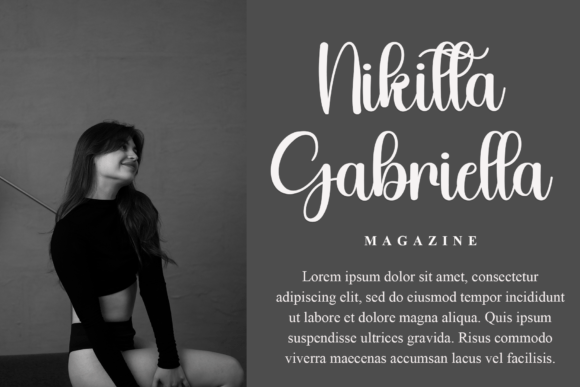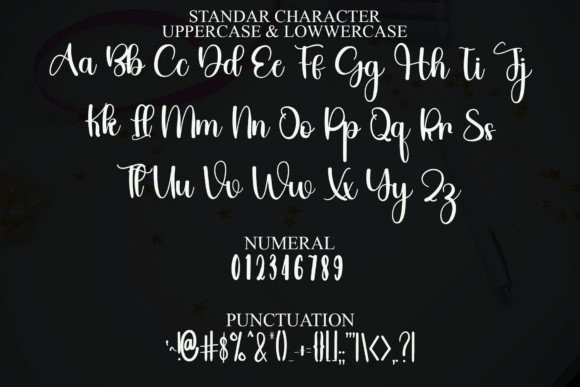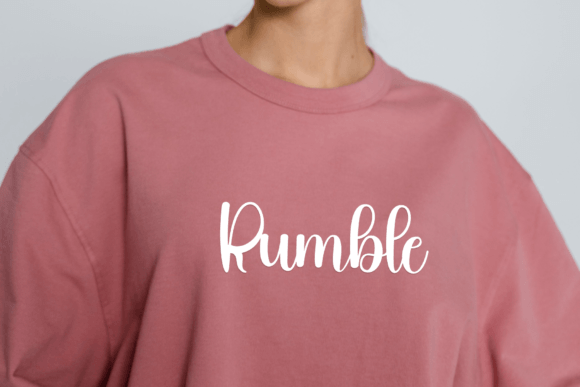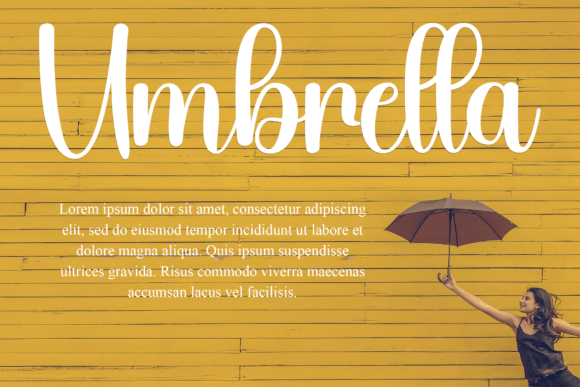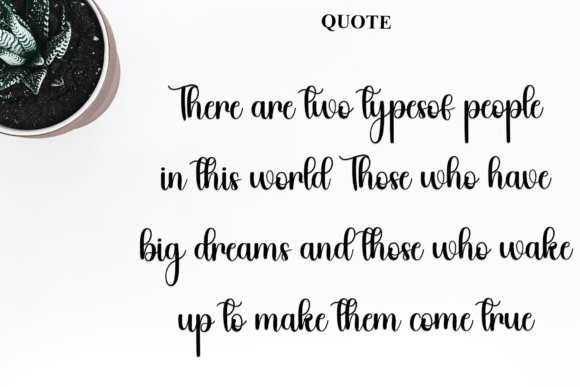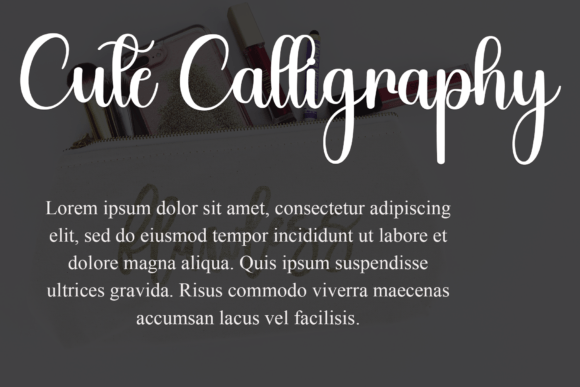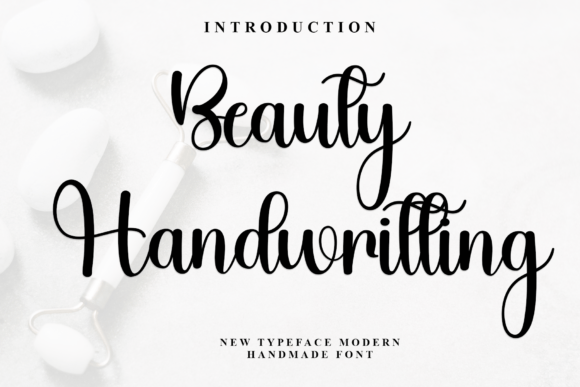
Introducing Beauty Handwriting Font: Elevate Your Designs with Elegance and Charm
Are you a designer, crafty DIY enthusiast, or social media influencer looking to add a touch of sophistication to your creations? Look no further than the Beauty Handwriting Font. This stunning font is designed to bring a sense of elegance, charm, and warmth to any design, making it perfect for a wide range of applications, from invitations and branding to social media graphics and more.
The Beauty of Fluid Strokes and Natural Flow
Beauty Handwriting Font boasts fluid strokes and a natural flow that creates a captivating, sophisticated look. The font’s unique characteristics make it stand out from other handwriting fonts, giving it a distinctive and stylish feel that’s sure to grab attention. Whether you’re looking to create a luxurious brand identity or add a personal touch to your social media posts, this font is sure to impress.
Perfect for Adding a Personal Touch
One of the key benefits of Beauty Handwriting Font is its ability to add a personal touch to any design. The font’s elegant and charming aesthetic makes it perfect for use in:
- Invitations: Create beautiful wedding invitations, birthday party invites, or baby shower announcements that set the tone for a special occasion.
- Branding: Establish a luxurious brand identity with a custom logo, packaging, or marketing materials that showcase your brand’s personality.
- Social Media: Elevate your social media presence with eye-catching graphics, quotes, or promotions that reflect your unique style.
Why Choose Beauty Handwriting Font?
With so many fonts available, why choose Beauty Handwriting Font? Here are just a few reasons why designers and crafters love this font:
- Unique and Versatile: Beauty Handwriting Font is a one-of-a-kind font that can be used in a variety of contexts, from formal to informal.
- Elegant and Sophisticated: The font’s fluid strokes and natural flow create a sophisticated look that’s perfect for high-end branding or special occasions.
- Easy to Read: Despite its elegant aesthetic, Beauty Handwriting Font is easy to read, making it perfect for use in body text or captions.
- Customizable: With a range of font styles and weights, you can customize Beauty Handwriting Font to suit your design needs.
Tips for Using Beauty Handwriting Font
To get the most out of Beauty Handwriting Font, here are a few tips to keep in mind:
- Pair with a Sans-Serif Font: For a beautiful contrast, pair Beauty Handwriting Font with a clean sans-serif font for body text or captions.
- Experiment with Font Sizes: Play around with different font sizes to create visual interest and hierarchy in your design.
- Add a Pop of Color: Use Beauty Handwriting Font in a bold, bright color to create a statement piece or draw attention to a specific element.
Beauty Handwriting Font is a stunning font that can elevate any design with its elegant and charming aesthetic. Whether you’re a designer, crafty DIY enthusiast, or social media influencer, this font is sure to bring a sense of sophistication and warmth to your creations. With its fluid strokes, natural flow, and versatility, Beauty Handwriting Font is the perfect choice for adding a personal touch to invitations, branding, social media, and more.